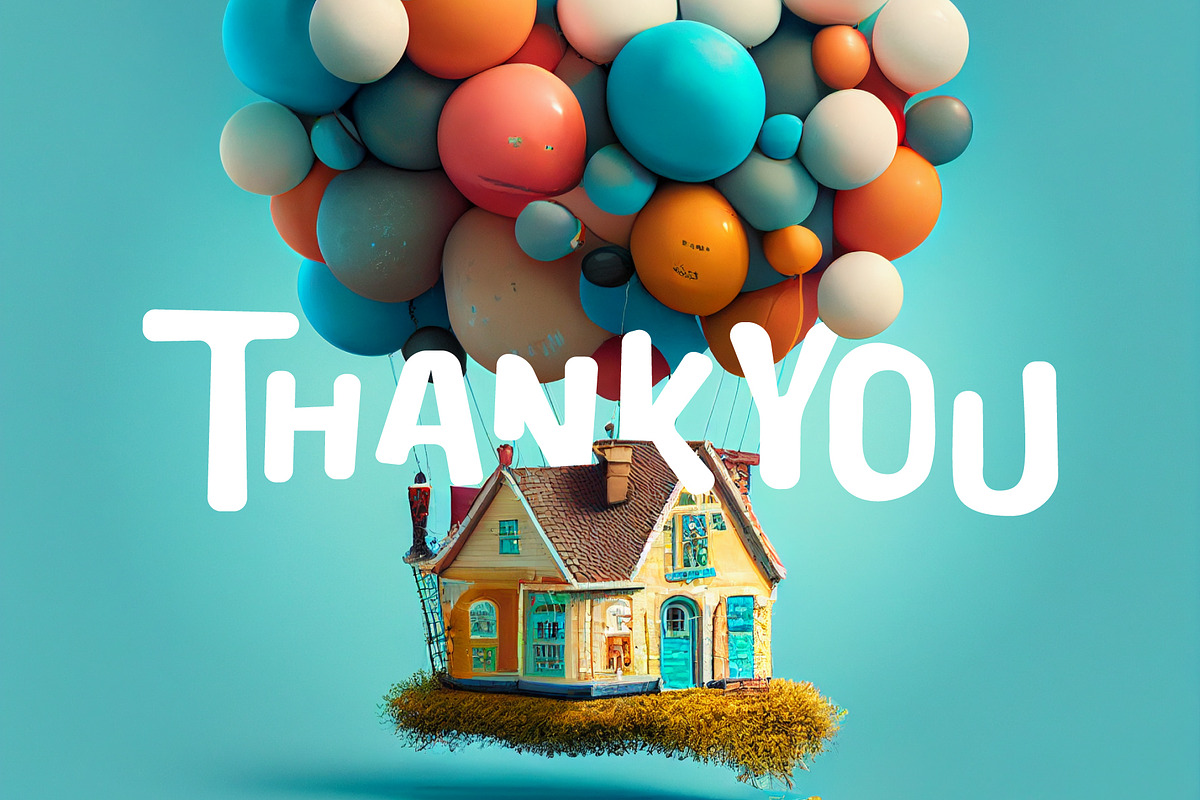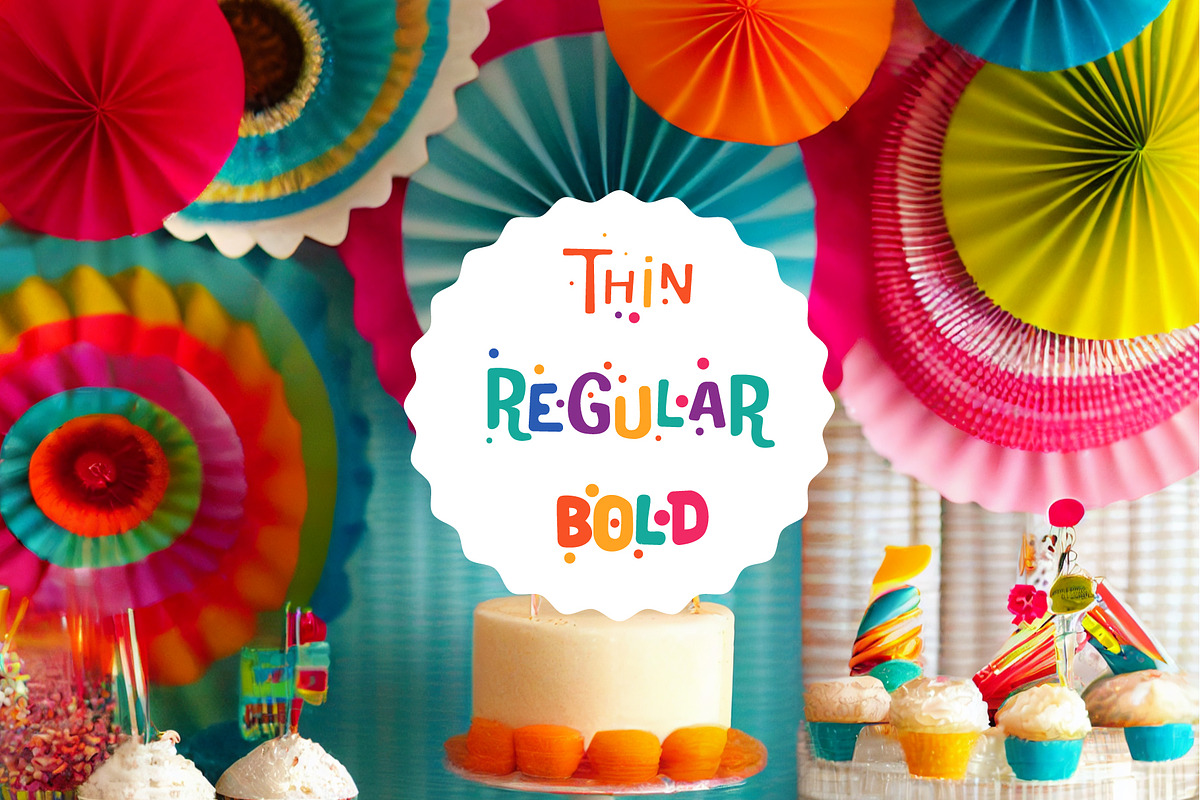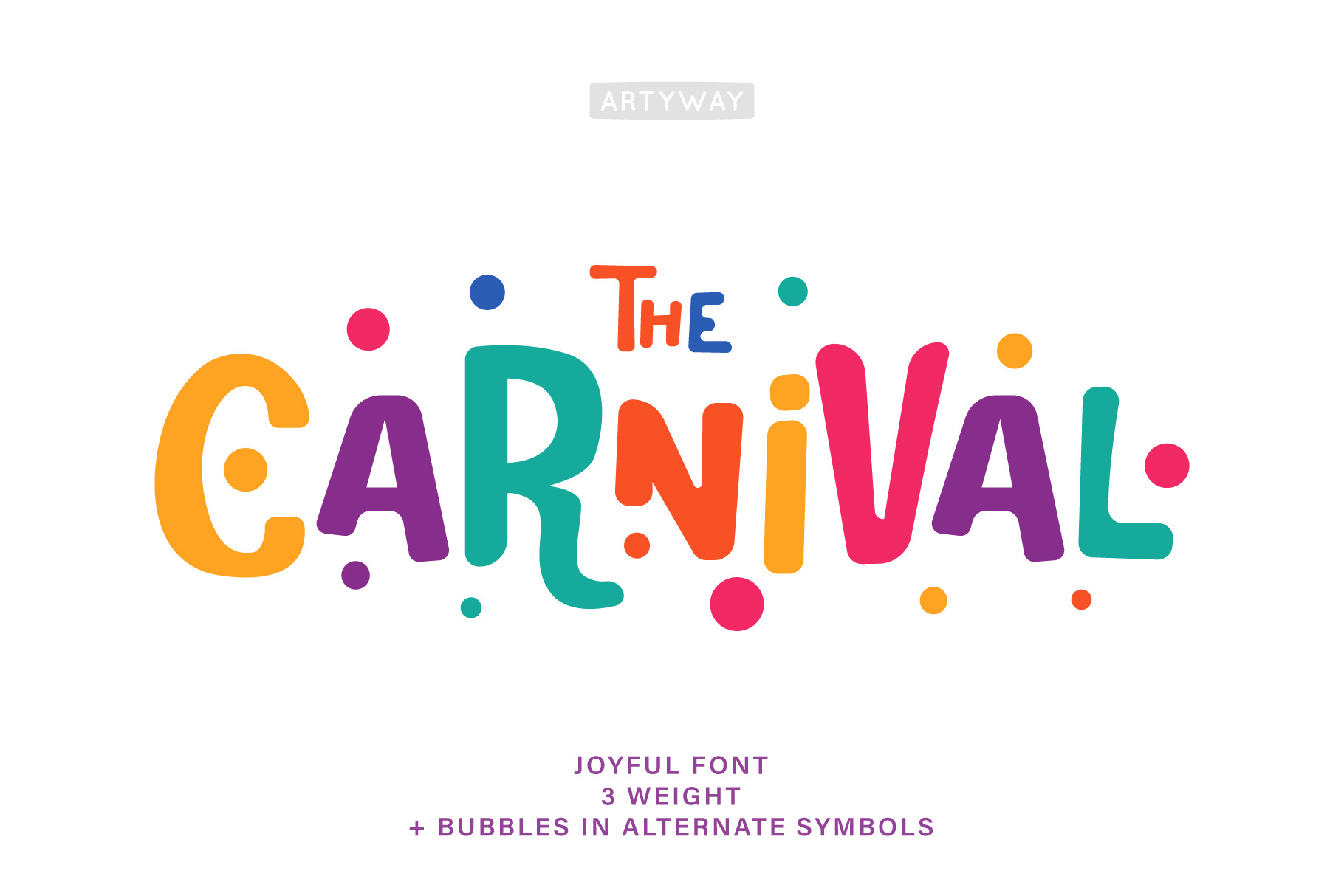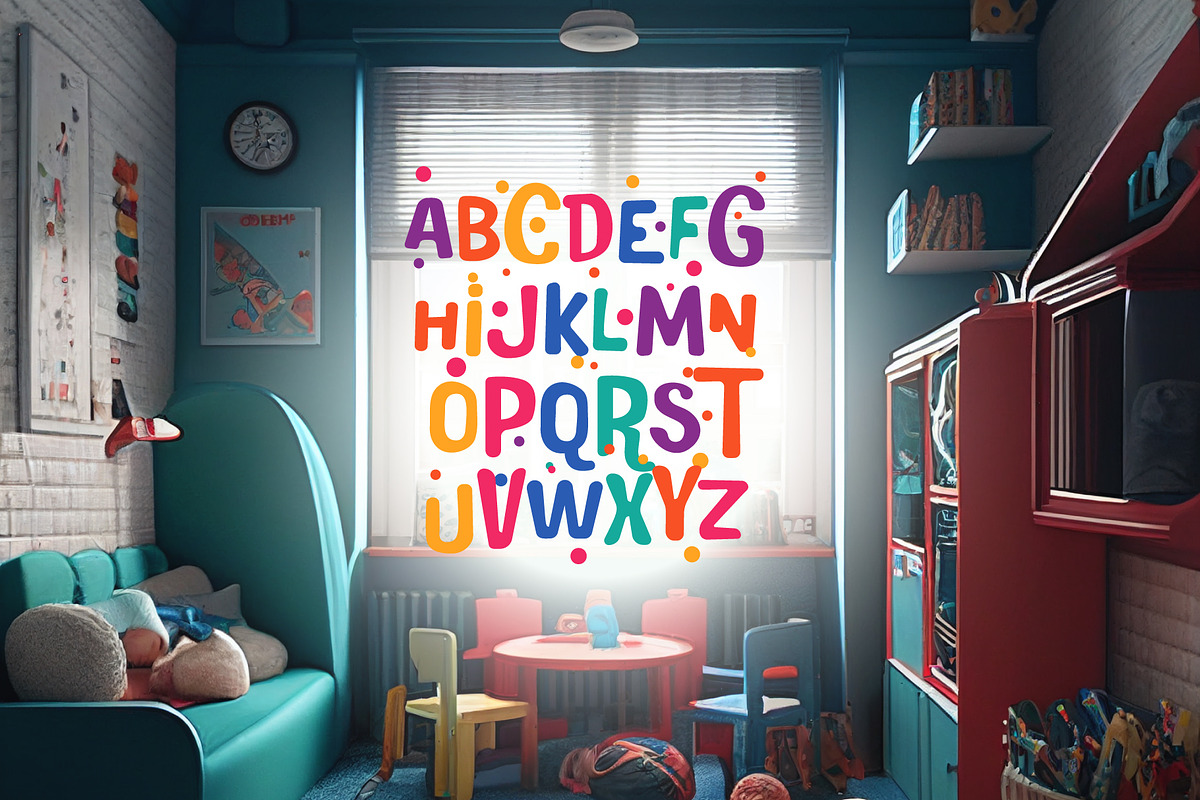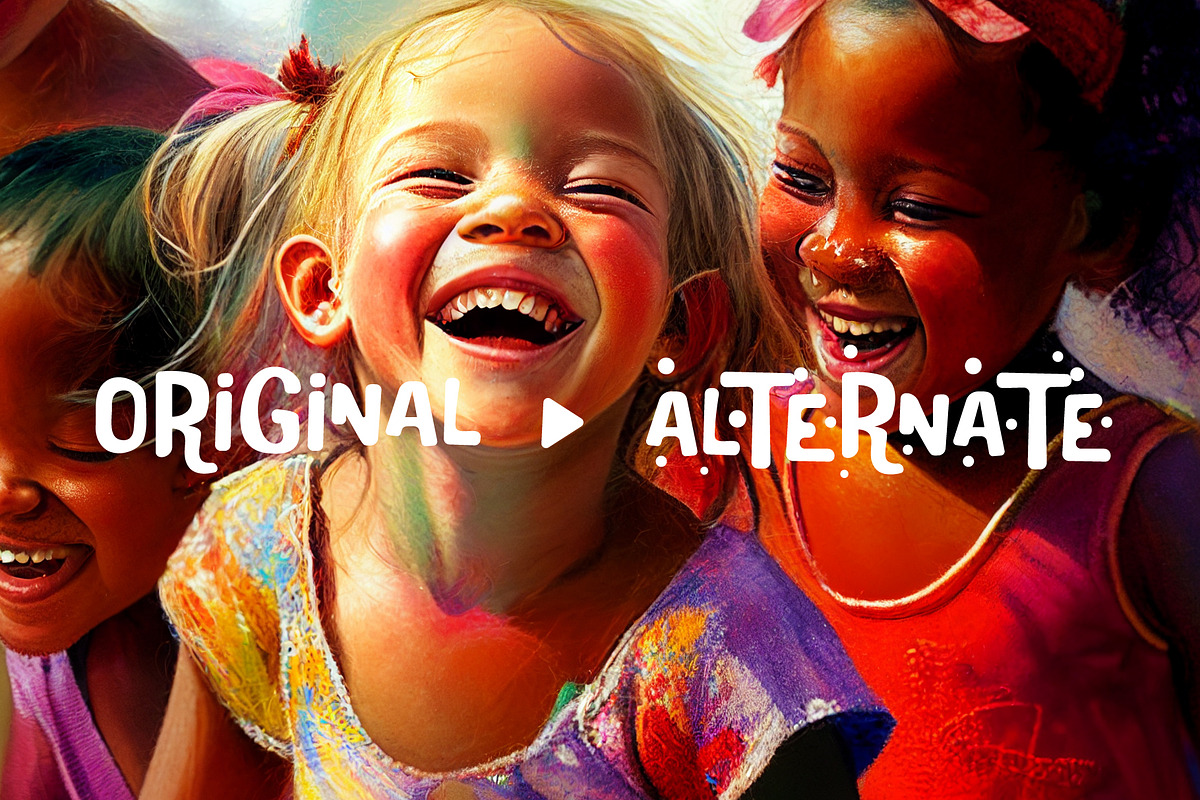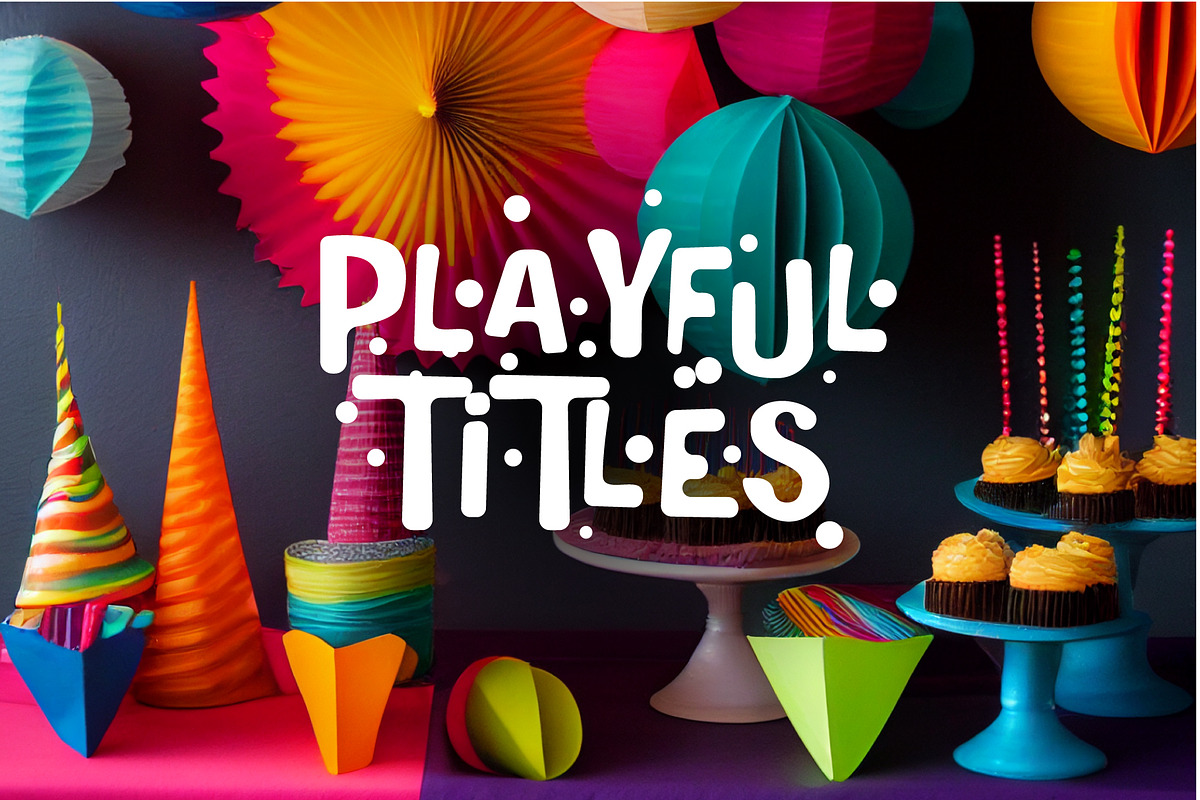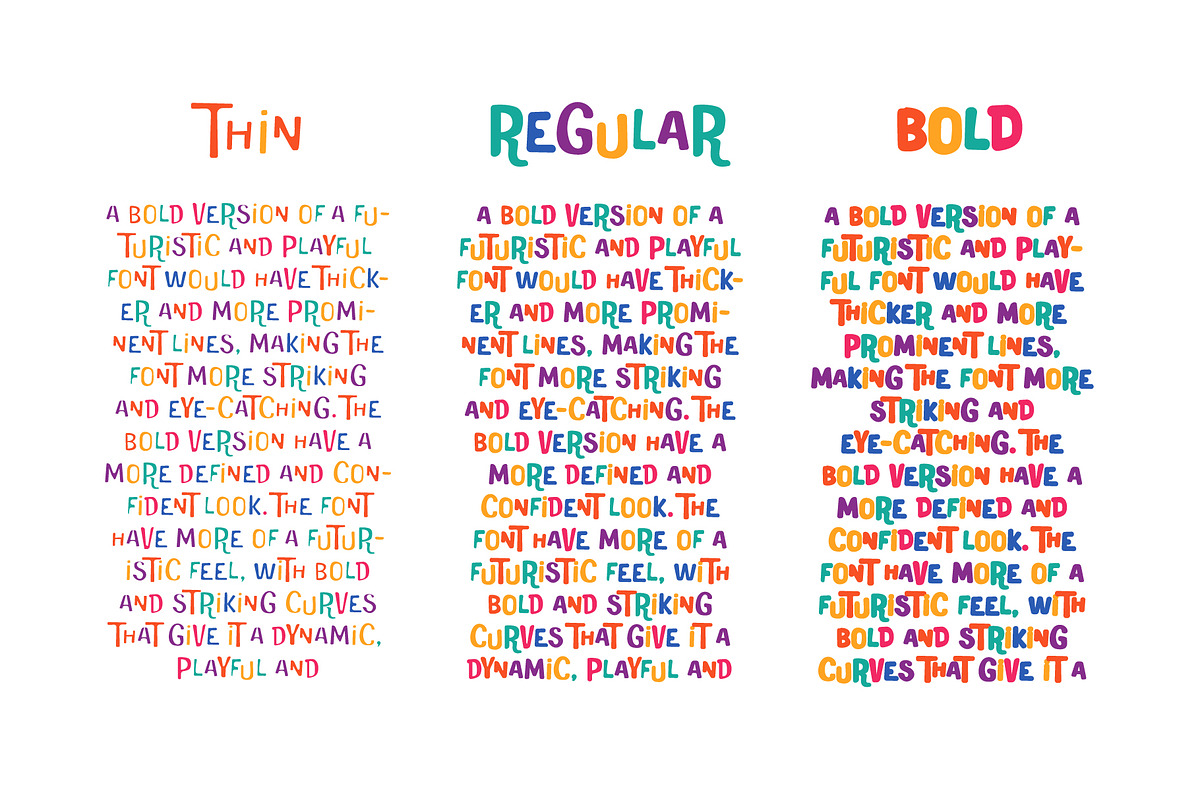
Carnival Headline Font
Introducing the "Carnival-Fest" font, the perfect addition to any party or celebration! This colorful and playful font features rounded letters in a variety of bright hues, making it perfect for birthday invitations, carnival posters, and party headlines. Add a touch of fun and excitement to your event with "Carnival-Fest"!
- English colored letters
- Light, Regular and Bold weight coverage
- Alternate symbols with bubbles
- Some punctuations